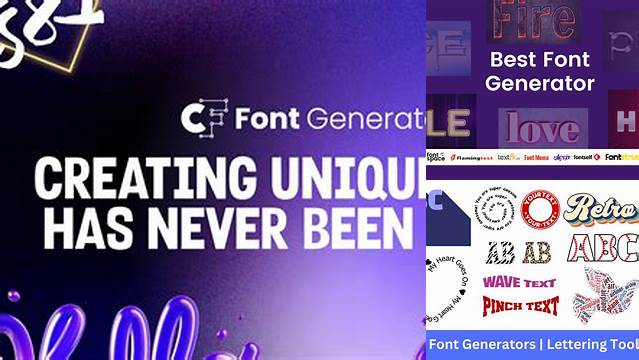
Free Font Generator Fancy: Create Unique Text
Are you looking to add a touch of style and personality to your designs? Then, a free font generator fancy is your ultimate tool to transform ordinary text into eye-catching masterpieces! Whether you're a seasoned designer, a social media enthusiast, or just someone who loves to play with fonts, a free font generator fancy offers a fun, accessible way to explore the world of typography. In this comprehensive guide, we'll dive deep into the features, benefits, and best practices of using these awesome generators. Get ready to unleash your inner font artist and discover how these tools can revolutionize your creative projects!
What is a Free Font Generator Fancy?
So, what exactly is a free font generator fancy? Simply put, it's an online tool that allows you to create unique and stylized text designs without any prior design experience. These generators use algorithms and pre-set styles to instantly transform your input text into a variety of fancy fonts. You can customize your text with different styles, such as cursive, bold, italic, bubble, and many more. Some advanced generators even let you tweak the spacing, size, and other characteristics of your text, giving you even more control over the final result. They are incredibly user-friendly and accessible, making them ideal for anyone looking to experiment with typography. They're perfect for creating social media posts, designing graphics, or simply adding a touch of flair to your everyday documents. The beauty of these tools lies in their simplicity and versatility. They enable you to create visually appealing text in a matter of seconds, freeing you up to focus on your creative vision rather than getting bogged down in the technical aspects of font design. Whether you're a small business owner looking to create branding materials, or a student wanting to make your presentations pop, a free font generator fancy is a game-changer. It empowers you to elevate your work and communicate your message effectively. The generators usually provide a wide range of font styles, from elegant and sophisticated to playful and quirky. You can easily find a style that matches your brand's aesthetic or the tone of your message. This flexibility allows you to create a cohesive and consistent visual identity across all of your projects. The ability to instantly see your text transformed into different styles is also a great way to spark your creativity. It's like having a virtual playground where you can experiment with different looks and find the perfect font to convey your ideas. These generators are not only easy to use but also incredibly cost-effective. You don't need to spend a fortune on expensive design software or hire a professional designer to create unique and visually stunning text. With a free font generator fancy, all you need is an internet connection and a little bit of creativity. The convenience of these tools is unmatched. You can access them from anywhere, at any time, making it easy to create custom fonts on the go. This is especially useful for those who work on multiple projects or have tight deadlines. Having access to a free font generator fancy on your mobile device can be a lifesaver when you need to quickly create a social media post or a quick graphic.
Benefits of Using a Free Font Generator Fancy
Why should you use a free font generator fancy? The benefits are numerous! First and foremost, these tools are incredibly easy to use. With a simple interface, you can quickly generate custom fonts without any design experience. No more struggling with complex software or hiring expensive designers! You can create eye-catching text in seconds, allowing you to focus on your message. Then, these tools offer a wide range of styles. Whether you're looking for a classic, elegant font or something more playful and modern, you'll find it with a free font generator fancy. This allows you to create text that perfectly matches your brand's aesthetic or the tone of your message. The flexibility to choose from various styles ensures that your text always looks professional and polished. Another key advantage is the instant preview feature. You can see your text transformed in real-time, allowing you to quickly experiment with different styles and find the perfect fit. This helps you visualize your design and make informed decisions about your font choices. The instant preview eliminates the guesswork, saving you time and effort. These tools are also incredibly versatile. They can be used for a variety of purposes, from social media posts and website graphics to invitations and logos. The ability to create custom fonts for various projects makes a free font generator fancy an invaluable tool for both personal and professional use. Furthermore, these generators are completely free to use. This makes them accessible to everyone, regardless of their budget. You don't need to invest in expensive software or hire a designer to create stunning text. The affordability makes these tools perfect for small businesses, freelancers, and anyone looking to add a creative touch to their projects without breaking the bank. A free font generator fancy provides you with an accessible and cost-effective way to elevate your designs. You can create professional-looking text without any financial strain. Finally, these tools offer endless creativity. They allow you to experiment with different styles and combinations, helping you to discover unique and personalized fonts that reflect your brand's identity or your personal style. The ability to constantly create and experiment with fonts keeps your designs fresh and engaging.
How to Use a Free Font Generator Fancy
Using a free font generator fancy is a breeze. First, you'll need to find a generator that suits your needs. There are many options available online, so take some time to explore and find one that offers the styles and customization options you're looking for. Once you've chosen a generator, the process is typically very straightforward. Then, you'll enter your desired text into the text box provided. This is the text you want to transform into a fancy font. Be sure to spell everything correctly, as the generator will display your text exactly as you type it. After you've entered your text, you'll usually see a list of font styles to choose from. Scroll through the options and select the one that appeals to you. Most generators offer a preview of your text in each style, so you can see how it will look. This allows you to make informed decisions about which style is best for your project. Once you've selected your desired font style, you may have the option to customize it further. Some generators offer additional features, such as adjusting the size, spacing, and color of your text. Experiment with these options to create the perfect look. This step allows you to fine-tune your font to meet your specific needs and design preferences. When you're happy with the final result, the generator will provide you with options for downloading or copying your fancy font. You can typically copy and paste the text directly into your social media posts, documents, or other projects. Some generators also allow you to download the text as an image file, which you can then use in your designs. This is particularly useful for creating logos or other graphics where you need a high-resolution image. Before you use your fancy font, make sure to check the generator's terms of use. Some generators may have restrictions on how you can use the fonts you create, such as for commercial purposes. This is important to avoid any legal issues. Finally, remember to have fun and be creative! A free font generator fancy is all about experimenting and finding the perfect font to express your unique style. Don't be afraid to try different styles, combinations, and customization options until you get the look you're going for. The more you experiment, the better you'll become at creating visually stunning text.
Tips and Tricks for Using a Free Font Generator Fancy
To get the most out of a free font generator fancy, consider these helpful tips and tricks. First, experiment with different combinations. Try pairing different font styles together to create a unique and eye-catching design. Mixing and matching fonts can add visual interest and personality to your text. Second, pay attention to readability. While fancy fonts can be fun, it's important to ensure that your text is still easy to read. Choose fonts that are clear and legible, especially for longer pieces of text. Consider the context of your project. For example, a formal invitation might call for a more elegant font, while a social media post could be more playful. The tone and style of your text should match your overall brand or message. Keep it consistent with your brand's visual identity. Use the same fonts and styles across all of your materials to create a cohesive and recognizable look. Don't be afraid to try different customization options. Experiment with size, spacing, and color to make your text truly stand out. This will allow you to fine-tune your fonts to perfectly fit your design requirements. Take advantage of any additional features offered by the generator. Some generators offer advanced options, such as the ability to create custom text effects or even animated fonts. Consider where you'll be using your fancy font. Different platforms and applications may have different requirements for font compatibility. Make sure the font you choose is compatible with the platform where you plan to use it. Most importantly, have fun and be creative! Don't be afraid to try new things and push the boundaries of typography. The best way to master a free font generator fancy is to experiment. Practice regularly and don't be afraid to make mistakes. The more you use these tools, the more creative you'll become. Use these tips and tricks to unlock your font generation potential.
Best Free Font Generators Fancy
Several excellent free font generators fancy are available. Let's explore a few popular options. First, there's the highly versatile text generator. It is known for its extensive collection of styles and customization options. You can create fonts that are both beautiful and functional. Another popular option is the cool text generator. With its user-friendly interface, it's perfect for beginners. It's known for its simplicity and a wide variety of fancy font styles. Another option is the fancy text generator that lets you convert your text. It also offers a unique selection of fonts that are suitable for social media. When you're looking for a stylish option that helps you to get your text to the next level. Additionally, there are other options like the cool fancy text generator that provides you with a lot of different options to style and customize your text. Many other platforms offer similar services with unique features. Consider factors such as the range of styles available, the ease of use, and any additional customization options. By comparing different generators, you can find the perfect tool to meet your needs. With these tools, you can transform your ordinary text into extraordinary designs that capture attention and elevate your projects.
Conclusion: Embrace the Power of Free Font Generators Fancy!
In conclusion, a free font generator fancy is an invaluable asset for anyone looking to enhance their visual communication. These tools offer an easy, accessible, and cost-effective way to add style and personality to your text. By understanding the benefits, learning how to use them, and exploring the available options, you can unlock a world of creative possibilities. So, what are you waiting for? Start exploring and unleash your typography creativity today!